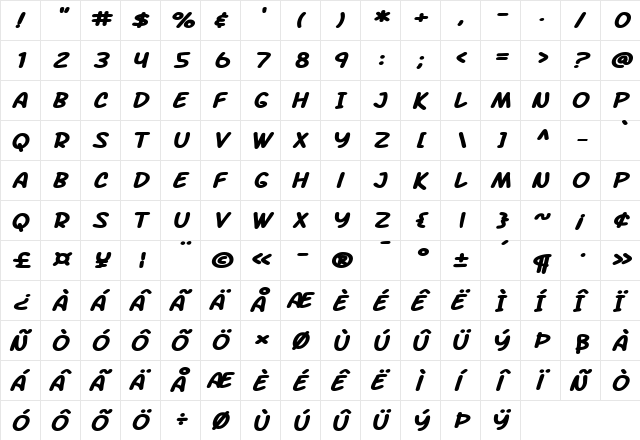
SF Arch Rival Extended Bold Italic Font Preview
Design Context for SF Arch Rival Extended Typeface
SF Arch Rival Extended offers clean, dependable letterforms without strong stylistic allegiance, making it a practical choice for designers who need flexibility. The dynamic lean of this cut emphasises speed and emphasis in any layout. Its bold stroke weight gives it real presence on the page.
Pro Tip: Try SF Arch Rival Extended for annotation and caption copy alongside an upright companion — the contrast in angle creates a dynamic but ordered typographic system.